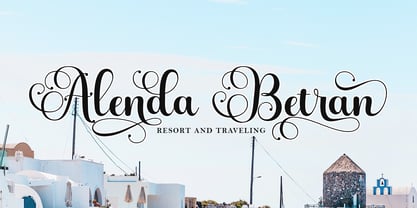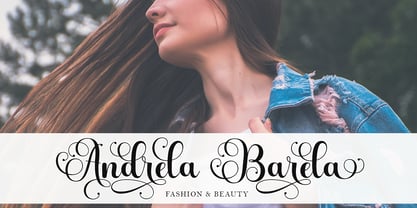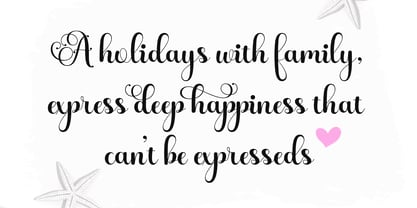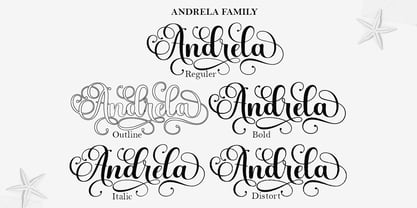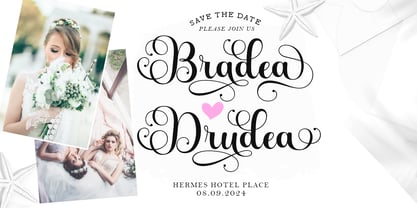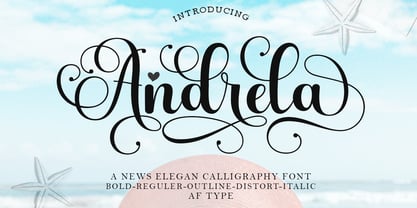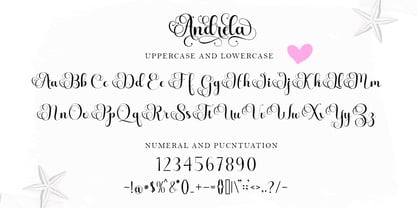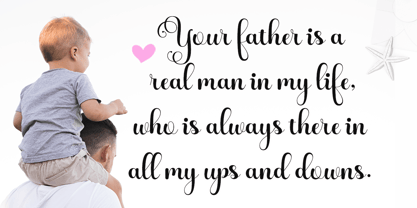
Andrela
by AF Type
The Andrela Font Family was designed by Al Qausar Firdaus and published by AF Type. Andrela contains 5 styles and family package options.
Meet the cool new calligraphy font - Andrela. This beautiful script is for those who want elegance and style for their designs and is perfect for wedding invitations, save the date cards, feminine branding, and other purposes. This font is modern, simple, but still authentic.
Andrela includes a complete set of Basic Uppercase and Lowercase Characters, Numbers, and Punctuation. The font also includes binders and many stylistic alternates to perfectly recreate natural calligraphy (check the preview to see them all).
Andrela